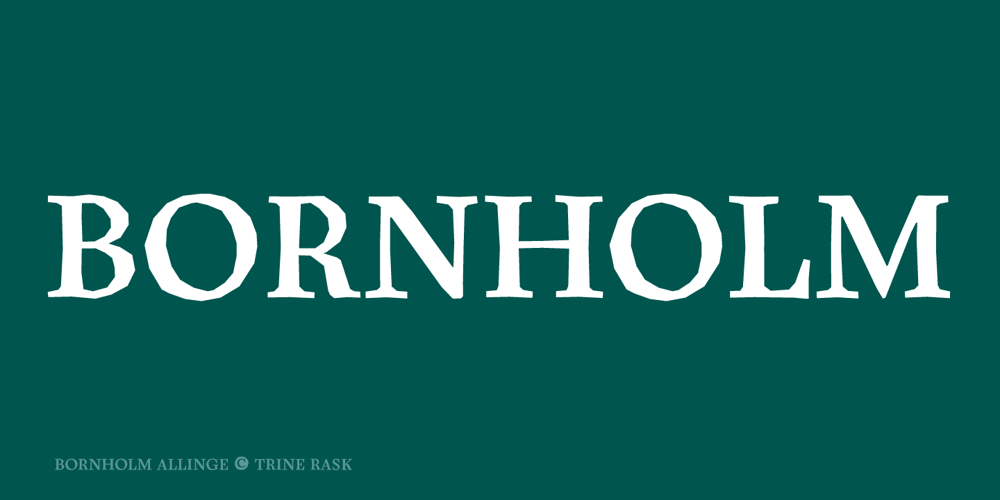
Bornholm Allinge Font Family was designed by Trine Rask and published by Trine Rask. Bornholm Allinge contains 2 styles and family package options. Bornholm Allinge is named after a village “Allinge” on the only rocky island in Denmark “Bornholm” It is the third face in a series of rough stone cut typefaces, that shares proportions, but differs in any other aspect like different pieces of rock. It is a powerful face, but still very friendly. Good for very big sizes, but can be used for small texts, movie titles, cartoons …